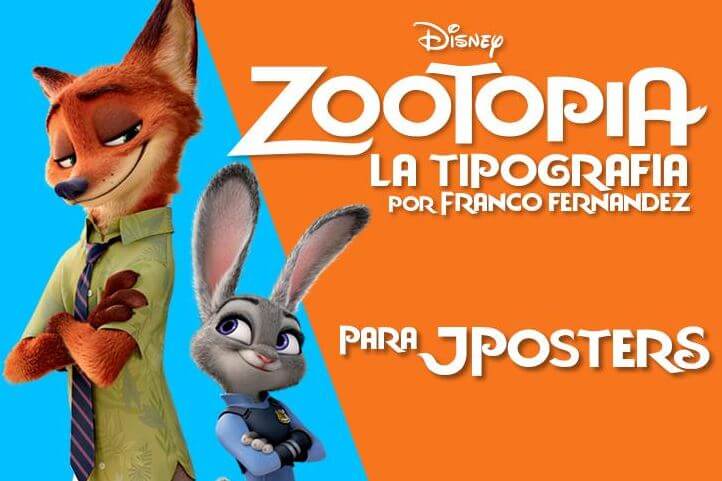
Zootopia Font
Zootopia Font! you may use this font for a non-public reason. Zootopia is the most famouse character in 3D wallpapers and other designing objects. It is a Disney font like neosteel font.
As other fonts, this is also very unique. The movie name which is made my this characters of this font gives a great look to all viewing people. And they can see it by their eyes as well. The font is to be had in uppercase letters most effective.
This font is beautiful and nice. Hence you can enjoy it a lot. Download Similarly, a few show typefaces inclusive of shella script and Koch-Antiqua have a mainly sensitive construct with a low x-top, and this fashion was very popular around the begin of the 20 the century. This font is mostly liked by people who love to designs.